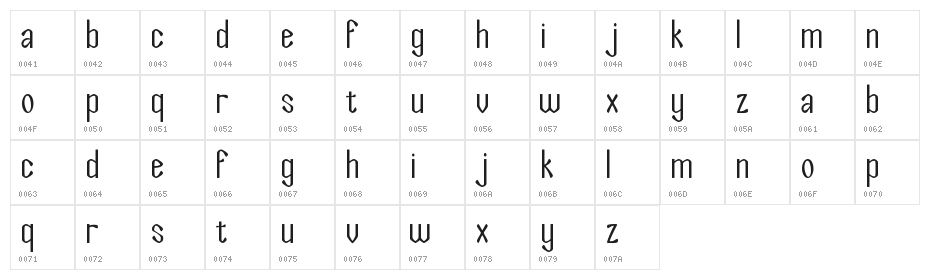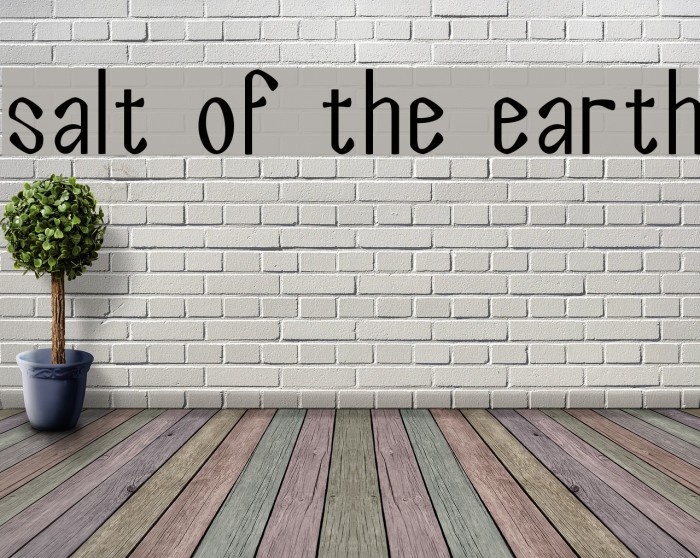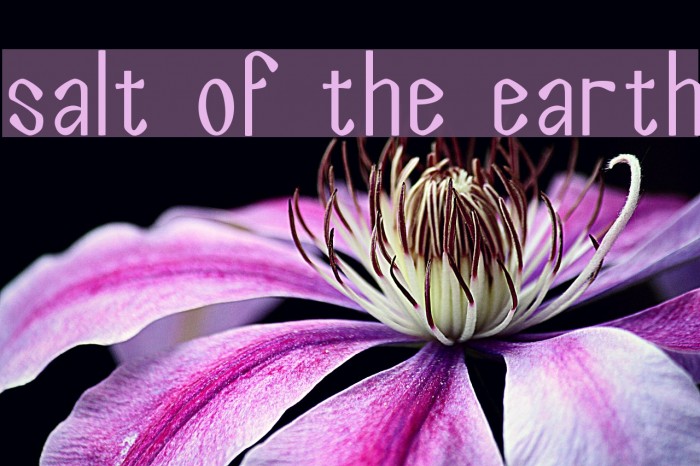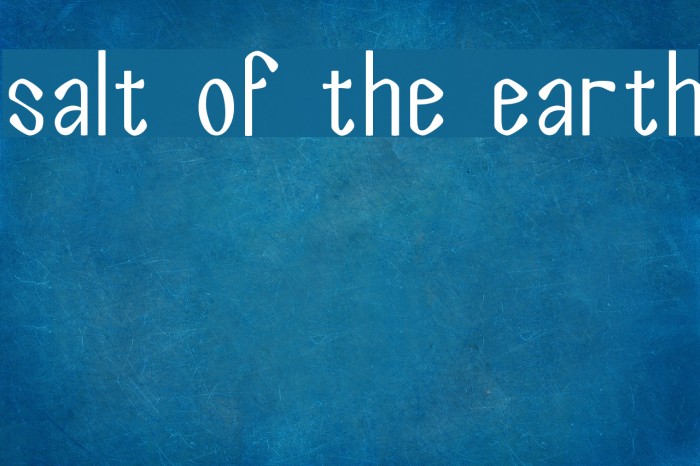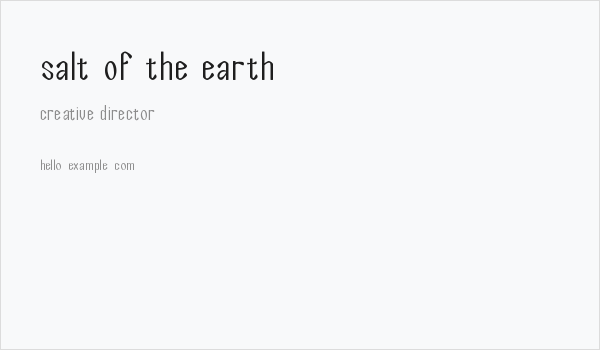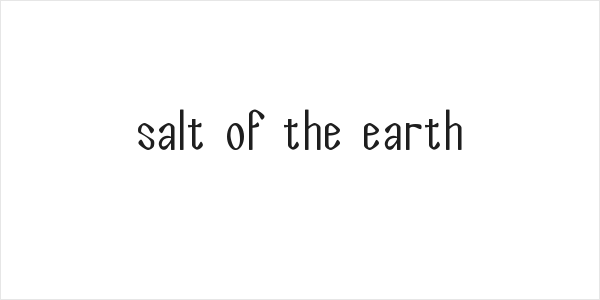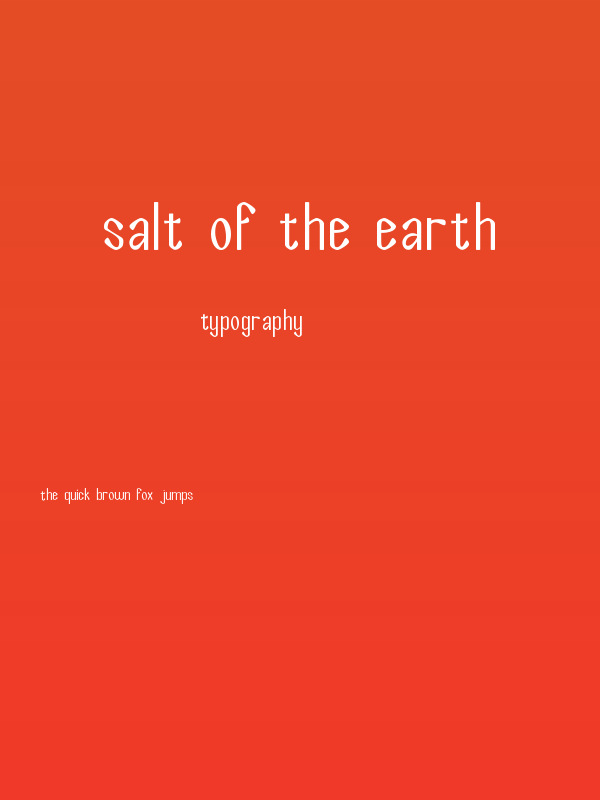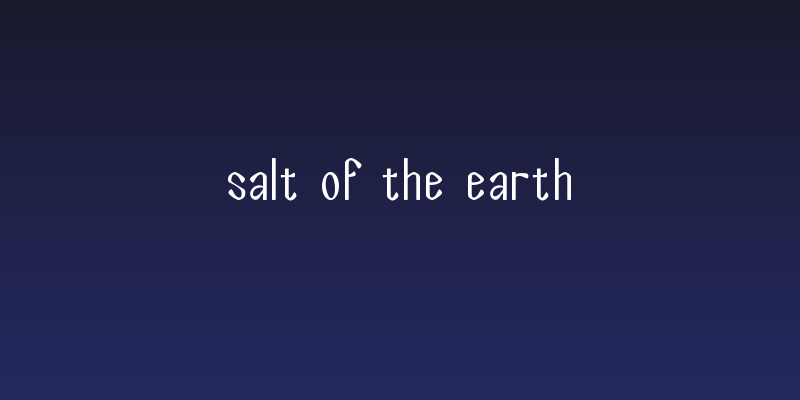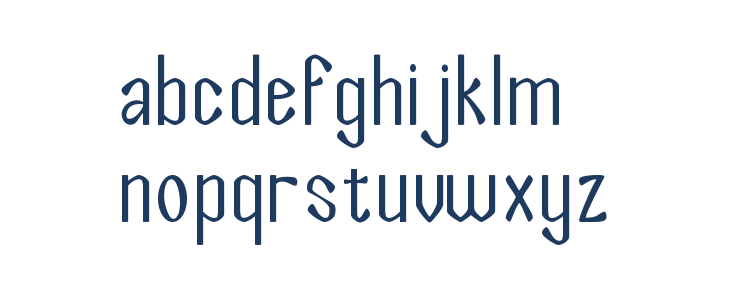
Salt of the Earth Font
Salt of the Earth Description
This font features a unique blend of modern and vintage styles, characterized by its tall, narrow letterforms and subtle curves. The design is clean and minimalistic, with a slight decorative flair that adds personality without overwhelming the reader. The strokes are consistent in width, providing a uniform appearance that enhances readability. The font's distinctive style is evident in the way certain letters, such as 's' and 'r', are crafted with a slight flourish, giving it a touch of elegance. This makes it suitable for a variety of design projects where a contemporary yet classic look is desired.
| Overall Style | Modern, Vintage |
| Proposed Projects | Ideal for branding, packaging, editorial design, and invitations where a stylish and readable font is needed. |